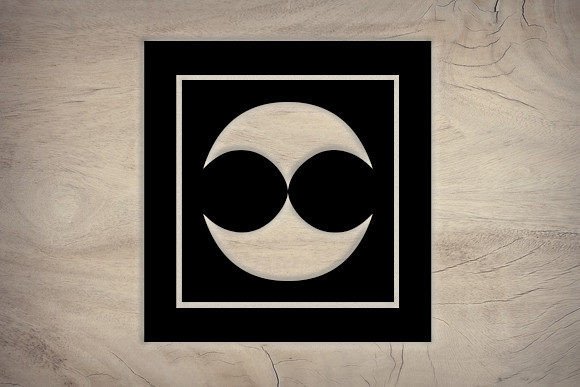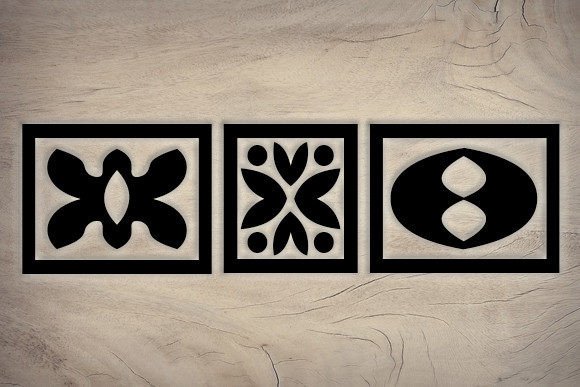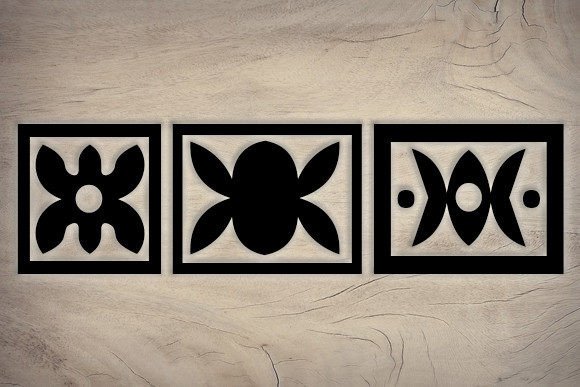
Introduction to Ornament Borders Font
Ornament Borders is a stylish dingbats font that will fit any of your designs.
Use it on postcards, flyers, wall art, and more .